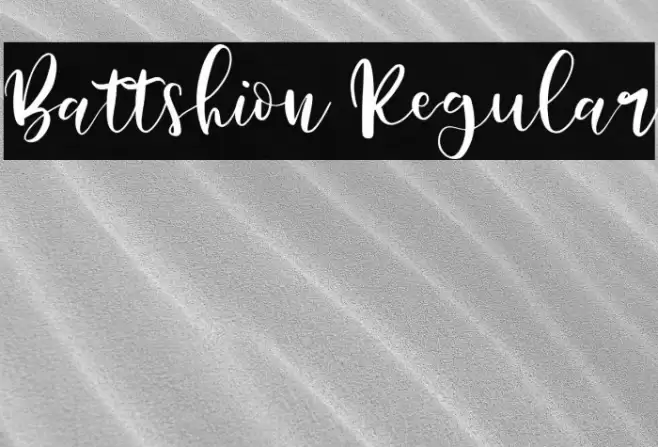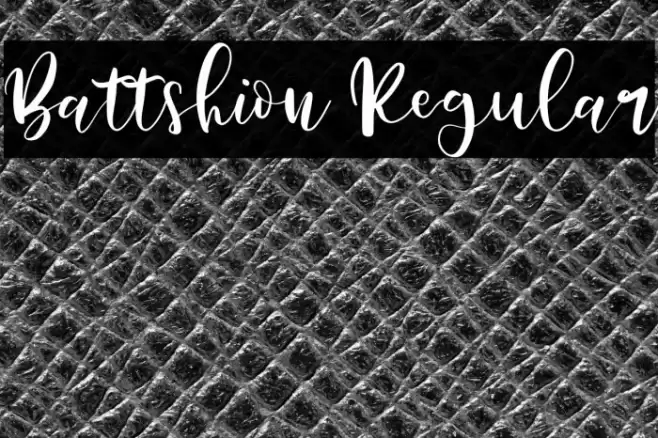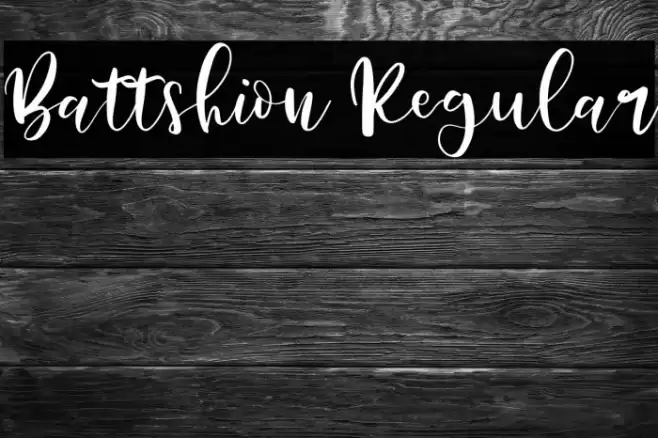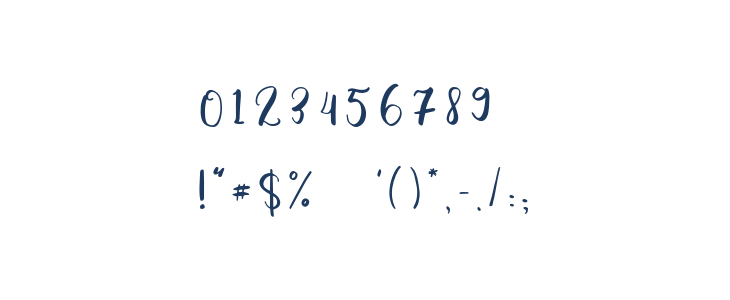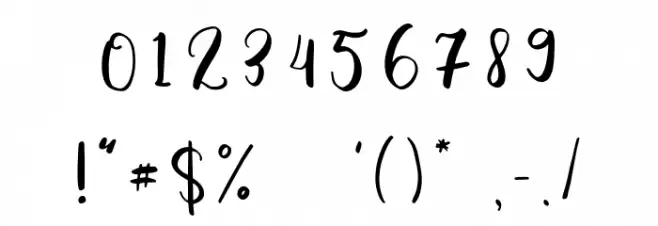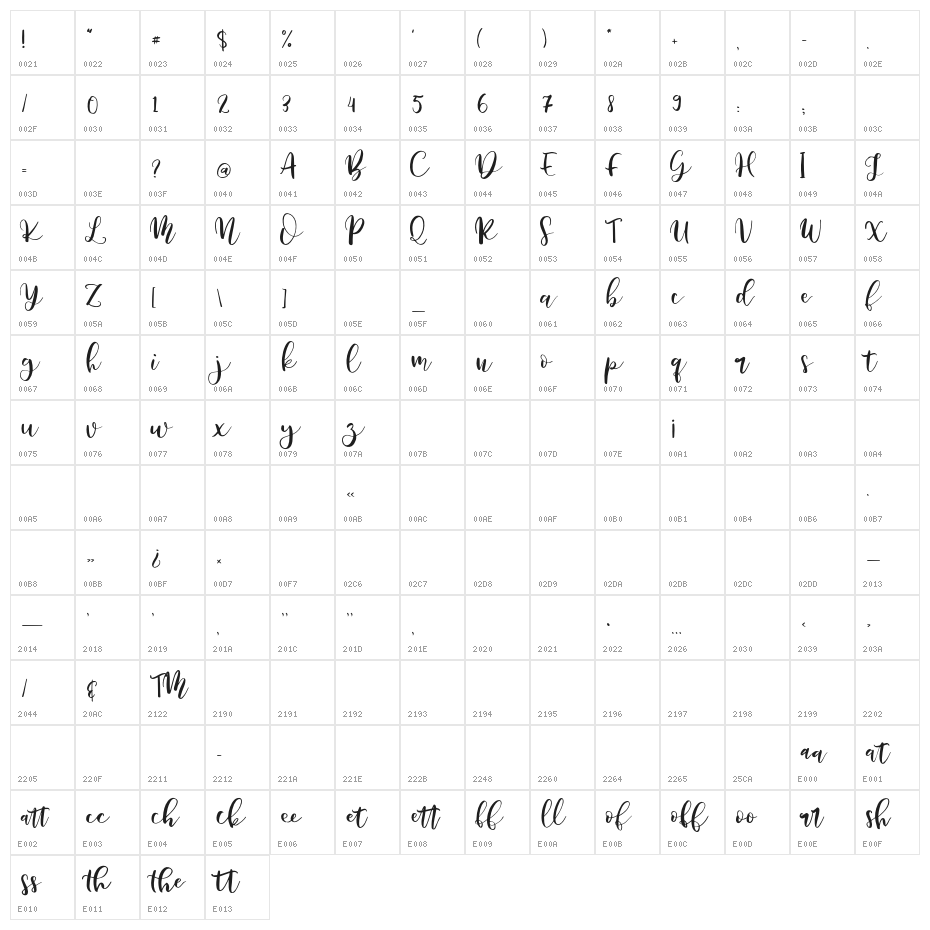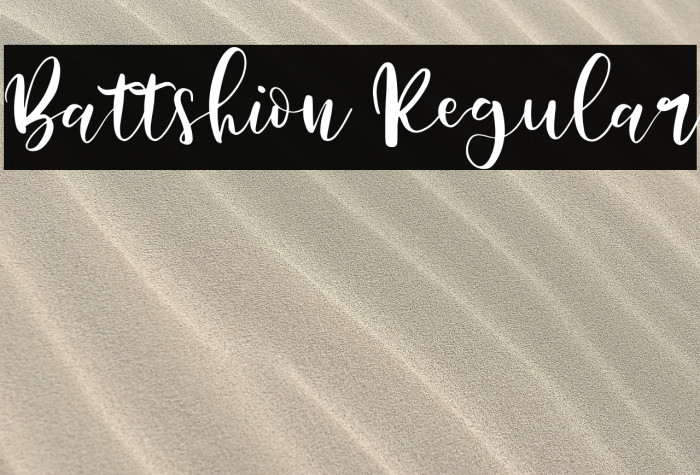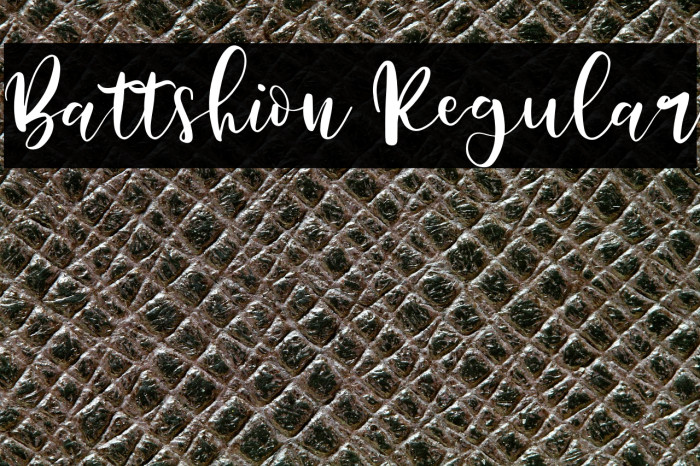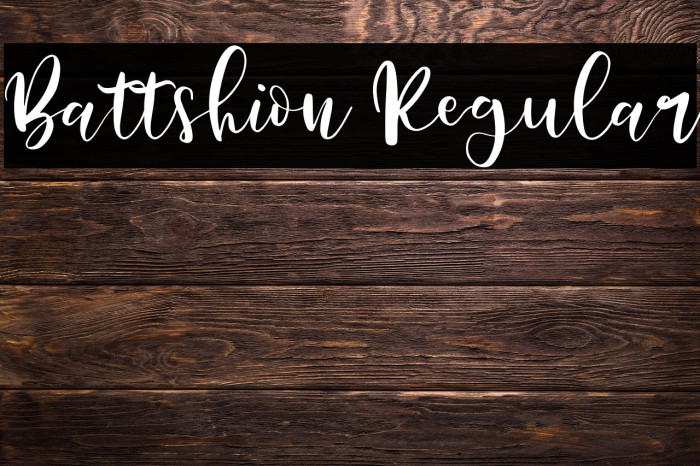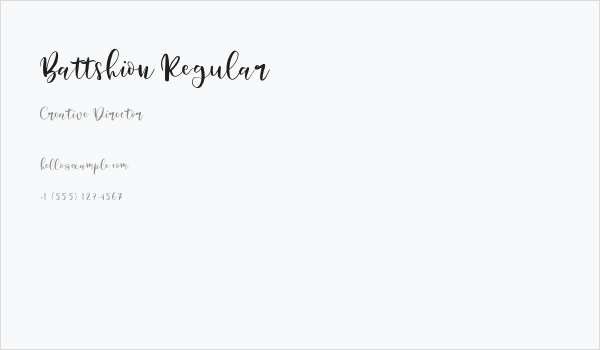
Battshion Regular Font
Battshion Regular Description
This elegant script font features a flowing, cursive style with intricate loops and swashes that give it a sophisticated and artistic appearance. The uppercase letters are bold and ornate, while the lowercase letters maintain a graceful continuity, making it ideal for decorative purposes. The numerals and special characters complement the overall design with a consistent flair. The font's fluid strokes and balanced proportions make it suitable for projects that require a touch of elegance and creativity.
A flowing, cursive script font with elegant loops and swashes from Regular fonts.